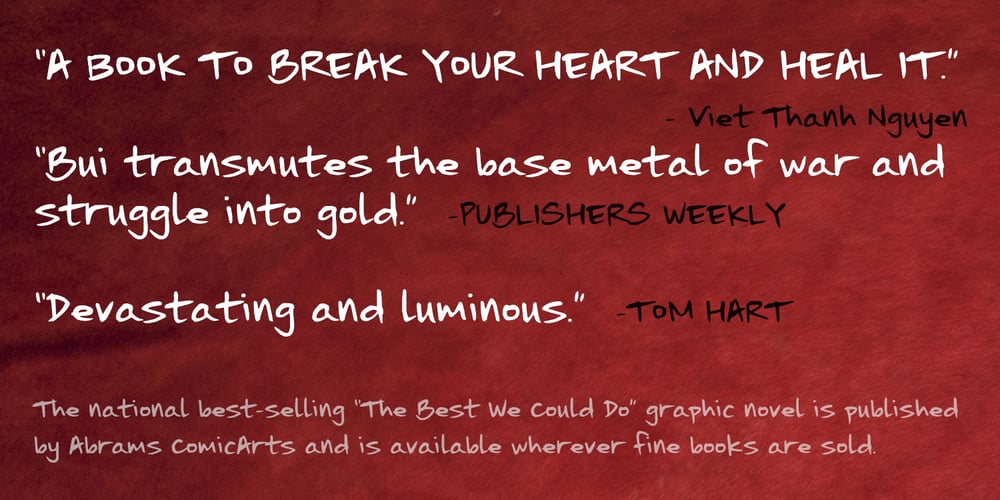
The Best We Could Do Font Family was designed by Chank Diesel, Thi Bui and published by Chank. The Best We Could Do contains 1 styles and family package options. The new font “The Best We Could Do” was created by artist and author Thi Bui who used the font in the graphic novel by the same name. The font is brush-script handwriting font which displays human personality rendered with bold confident strokes full of passion and expression. Chank’s work on this font captured Bui’s distinctive textual style and also saved her a ton of headache and time in inking. A debut memoir that tells the story of one family’s journey from their war-torn home in Vietnam in the 1970s to their new lives in America, the autobiographical book is lauded for its heart-breaking exploration of identity, family, and home. Bui ties her modern life with the multi-generational experiences of her family, weaving together the emotional threads of their relationships to find clarity in her current day. “The Best We Could Do” graphic novel is published by Abrams ComicArts and is available wherever fine books are sold.